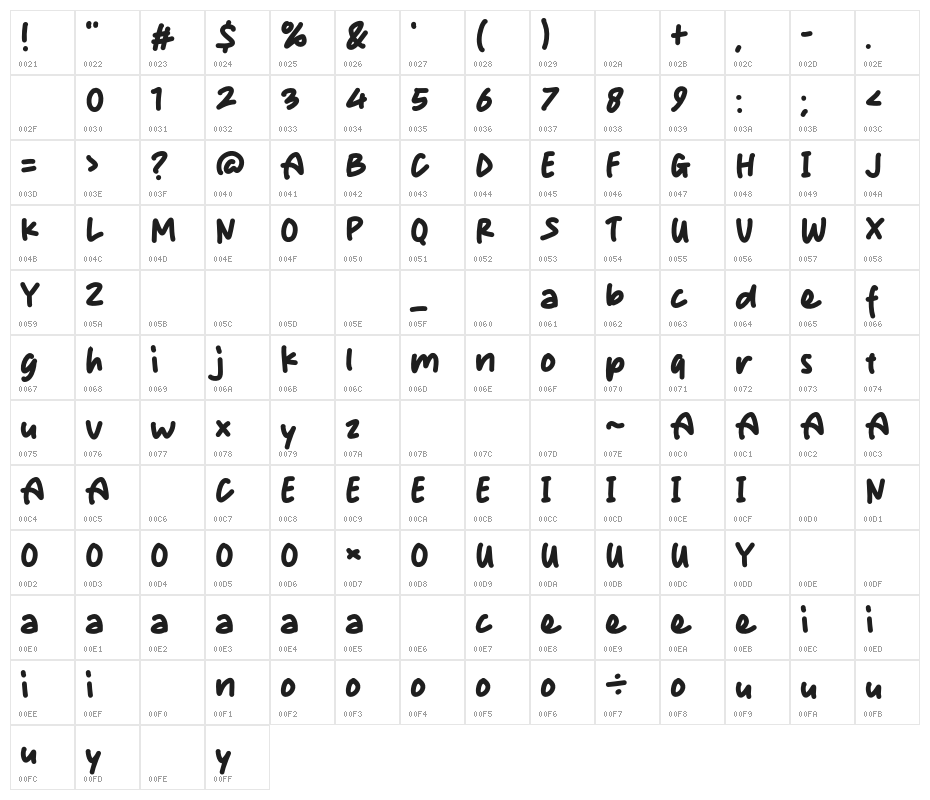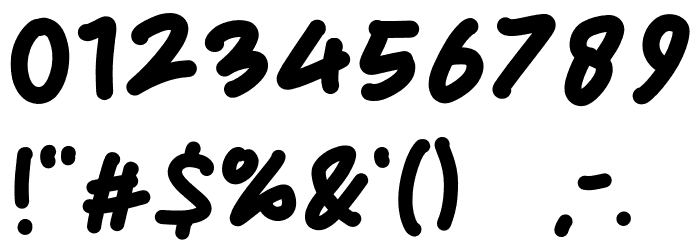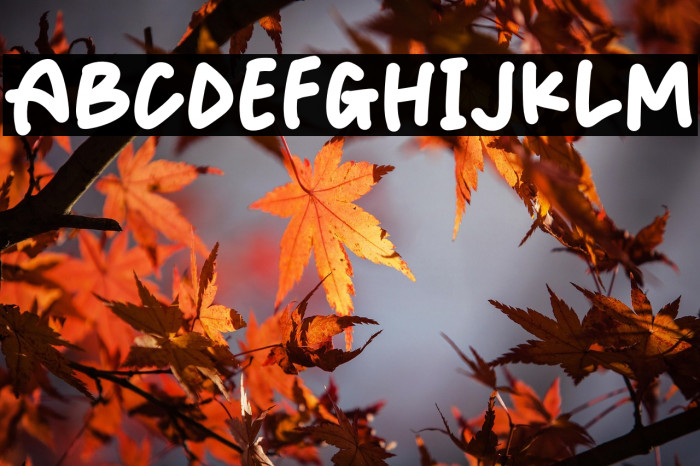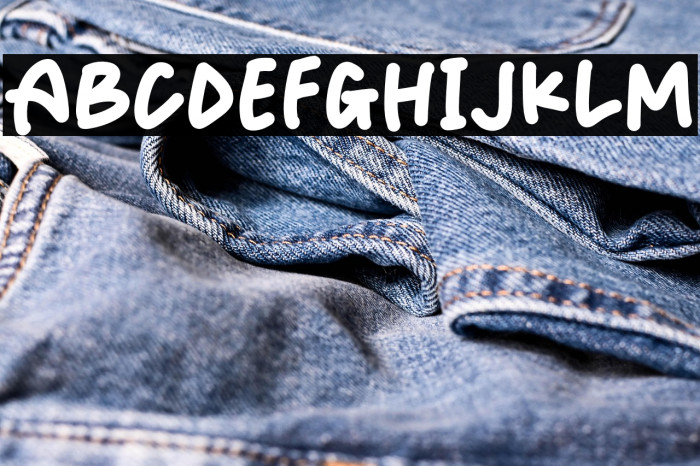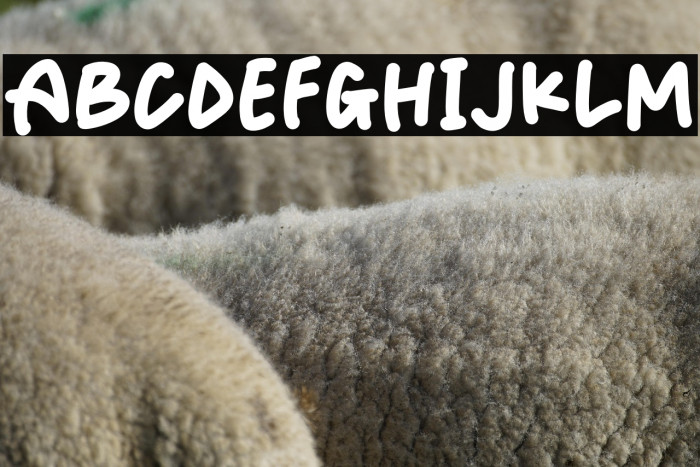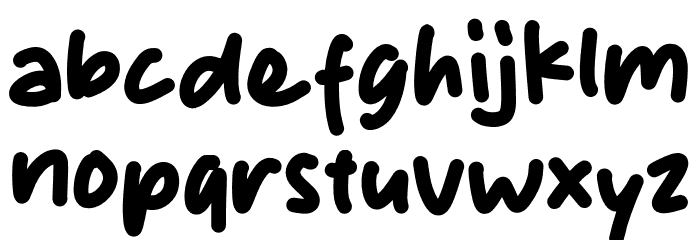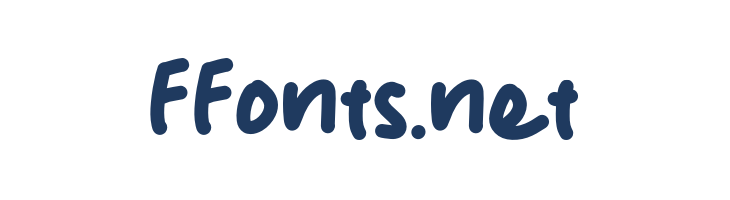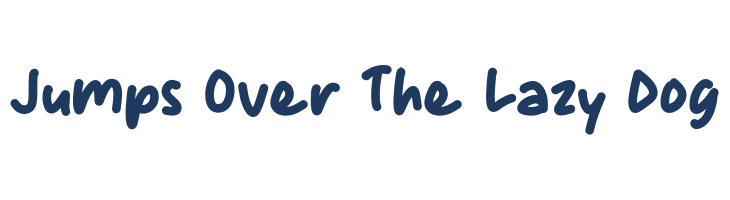
King Kids Font
King Kids Description
This playful and bold font features a handwritten style that exudes a youthful and energetic vibe. The letters are rounded and slightly irregular, giving it a casual and friendly appearance. The strokes are thick and consistent, providing a strong visual impact. The font maintains a uniform weight throughout, which enhances its readability despite its informal style. It includes a full set of uppercase and lowercase letters, numerals, and a variety of special characters, making it versatile for different uses. The overall design is approachable and fun, making it ideal for projects aimed at children or those seeking a whimsical touch.
| Overall Style | Playful, Casual |
| Use Case | Headlines, Logos, Posters, Children's materials |
| Proposed Projects | Children's books, educational materials, playful branding, greeting cards, and posters. |